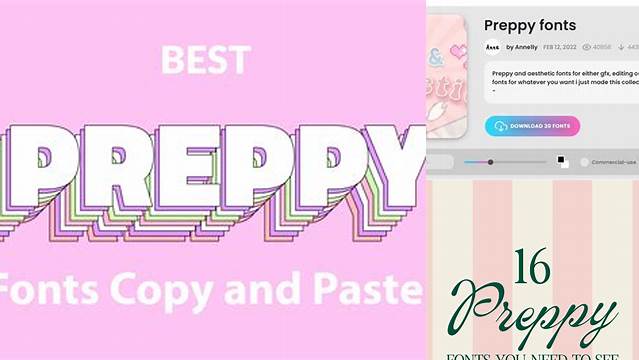
Preppy Fonts: Copy & Paste For Aesthetic Designs
Are you looking to add a dash of preppy style to your digital content? You're in the right place! In this article, we’re diving deep into the world of preppy fonts that you can easily copy and paste. We’ll explore what makes a font “preppy,” where to find them, and how to use them to create a consistent and appealing aesthetic. Whether you're jazzing up your social media, designing invitations, or just want to give your notes a preppy makeover, we’ve got you covered.
What Defines a Preppy Font?
So, what exactly makes a font “preppy”? Preppy fonts often evoke a sense of tradition, elegance, and a touch of playfulness. Think classic meets contemporary! These fonts usually have clean lines, a timeless appeal, and a hint of sophistication. Serif fonts, with their little decorative strokes, are commonly associated with the preppy look. Fonts like Times New Roman, Garamond, and Georgia are timeless choices that scream classic preppy. They’re readable, versatile, and perfect for adding a touch of tradition to your projects. But it's not just serif fonts; some sans-serif fonts can also fit the preppy aesthetic, especially those that have a clean, modern feel. Think along the lines of Helvetica or Arial, used in moderation and paired with the right elements, they can bring a modern preppy vibe. What sets these fonts apart is their ability to blend seamlessly into various designs while maintaining a refined appearance. They're not overly flashy or attention-grabbing but rather subtly enhance the overall look and feel. The key is to choose fonts that are easy on the eyes and convey a sense of understated elegance. Color also plays a huge role. Preppy designs often use navy, pastel pink, light blue, and other soft, muted colors that complement the font without overpowering it. By keeping the color palette cohesive and refined, you can enhance the preppy aesthetic and create a visually appealing design. Ultimately, a preppy font is all about balance and harmony, blending traditional elements with modern sensibilities to create a look that is both timeless and stylish.
Where to Find Preppy Fonts
Finding the perfect preppy fonts can be an adventure! Numerous resources offer a wide selection of fonts that fit this aesthetic. Let's start with the basics: Google Fonts is a fantastic place to begin your search. It's free, easy to use, and has a surprisingly diverse collection. Look for fonts like Playfair Display, Raleway, or Montserrat. These are versatile options that can be used in various preppy-themed projects. Another great option is Adobe Fonts, especially if you already have an Adobe Creative Cloud subscription. Adobe Fonts offers a curated collection of high-quality fonts, including many that would suit a preppy style. Think about fonts like Garamond Premier Pro or Proxima Nova. These options provide a polished and professional look, perfect for more formal projects. For those looking for something a little more unique, consider exploring creative marketplaces like Creative Market or Etsy. These platforms offer fonts created by independent designers, often with a distinctive and personalized touch. You might find beautifully crafted serif fonts with elegant swashes or modern sans-serif fonts with a subtle preppy flair. Keep in mind that some of these fonts may come with a price tag, but the investment can be worth it if you're looking for something special. When searching for fonts, use keywords like "classic," "elegant," "serif," "clean," and "modern" to narrow down your results. Don't be afraid to experiment with different combinations and see what works best for your project. Remember, the key to a successful preppy design is to balance traditional elements with contemporary touches, so choose fonts that reflect this aesthetic.
Copy and Paste: Making It Easy
One of the easiest ways to use preppy fonts is through copy and paste methods, especially for social media or quick projects. While you can’t directly copy and paste a font style into every application, there are tools and websites that generate text in fancy fonts that you can then copy and paste. Websites like LingoJam, Cool Symbol, and Fancy Text Generator are super handy. These sites allow you to type in your desired text, and they’ll generate various font styles that you can then copy and paste into your Instagram bio, Twitter posts, or even messaging apps. Keep in mind that these fonts aren’t actual fonts; they’re more like symbols or characters that resemble different font styles. This means they might not be supported by all platforms or devices. However, for adding a touch of preppy flair to your social media profiles or creating eye-catching headlines, they can be a quick and effective solution. When using these tools, be sure to choose fonts that are readable and align with the preppy aesthetic. Avoid anything too ornate or difficult to read, as the goal is to enhance your message, not distract from it. Also, consider the platform you’re using and whether the font will display correctly. Some platforms may have limitations or display the font differently than expected. For more extensive design projects, consider using proper design software like Adobe Photoshop or Illustrator. These programs allow you to work with actual font files, giving you greater control over typography and ensuring compatibility across different platforms and devices. While the copy and paste method is great for quick fixes, professional design software is the way to go for more polished and consistent results.
Aesthetic Considerations
When incorporating preppy fonts into your designs, keep a few aesthetic considerations in mind. First and foremost, think about your overall color palette. Preppy designs often feature soft, muted colors like pastel pink, light blue, and navy. These colors complement the elegance of preppy fonts and create a cohesive visual experience. Avoid using overly bright or clashing colors, as they can detract from the refined aesthetic. Balance is also key. Don’t overcrowd your design with too many elements or fonts. Stick to a maximum of two or three fonts to maintain a clean and uncluttered look. Use different font sizes and weights to create visual hierarchy and draw attention to important information. Consider the placement of your text and other design elements. Preppy designs often have a sense of symmetry and order, so try to arrange your elements in a balanced and harmonious way. Leave plenty of white space around your text to improve readability and create a sense of openness. When it comes to imagery, opt for classic and timeless visuals. Think nautical themes, preppy patterns like stripes and polka dots, and elegant illustrations. Avoid using overly trendy or edgy images, as they may clash with the preppy aesthetic. Ultimately, the goal is to create a design that is both visually appealing and conveys a sense of sophistication and refinement. By paying attention to these aesthetic considerations, you can ensure that your preppy designs are polished, professional, and truly capture the essence of this timeless style.
Examples of Preppy Fonts in Use
To give you a better idea of how to use preppy fonts, let’s look at some real-world examples. Imagine you're designing invitations for a summer garden party. You could use a classic serif font like Garamond for the main text, paired with a delicate script font for the names of the hosts. The combination of these two fonts creates a sophisticated and elegant look that is perfect for a formal event. For a preppy blog, consider using a clean sans-serif font like Montserrat for headlines and a readable serif font like Georgia for body text. This combination provides a balance of modernity and tradition, making your content both visually appealing and easy to read. When designing social media graphics for a preppy clothing brand, you might use a bold sans-serif font like Raleway for the logo and a classic serif font like Playfair Display for captions and product descriptions. This creates a cohesive brand identity that is both stylish and timeless. If you're creating a preppy-themed website, think about using a combination of fonts that reflect the overall aesthetic of the site. For example, you could use a classic serif font for headings and a clean sans-serif font for navigation and other UI elements. The key is to choose fonts that work well together and create a seamless user experience. Consider how different fonts can evoke different emotions and associations. A formal serif font might convey a sense of tradition and authority, while a playful script font can add a touch of whimsy and personality. By understanding the nuances of different fonts, you can use them to create designs that are both visually appealing and emotionally resonant. Experiment with different font pairings and see what works best for your project. Don't be afraid to break the rules and try something new, but always keep the overall preppy aesthetic in mind.
So, there you have it! Preppy fonts can add a touch of elegance and sophistication to any project. By understanding what makes a font preppy, knowing where to find them, and using them thoughtfully, you can create designs that capture the essence of this timeless style. Whether you’re working on social media graphics, invitations, or a full-fledged website, the right font can make all the difference. Experiment, have fun, and let your creativity shine! Remember, the goal is to create designs that are both visually appealing and authentically preppy.